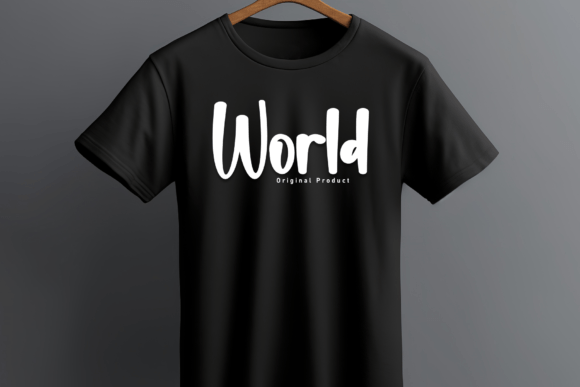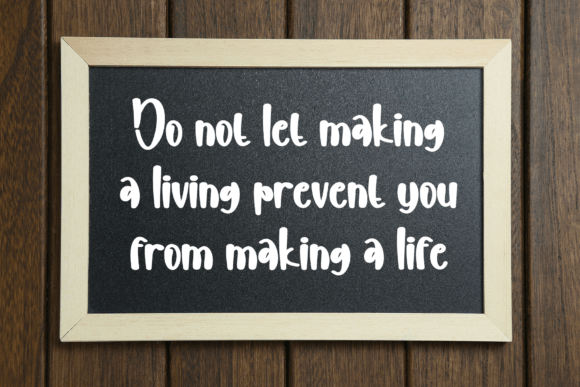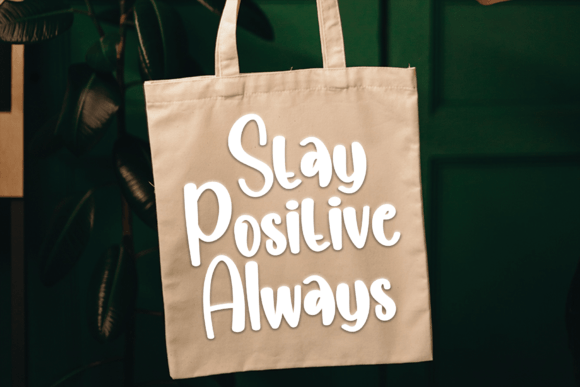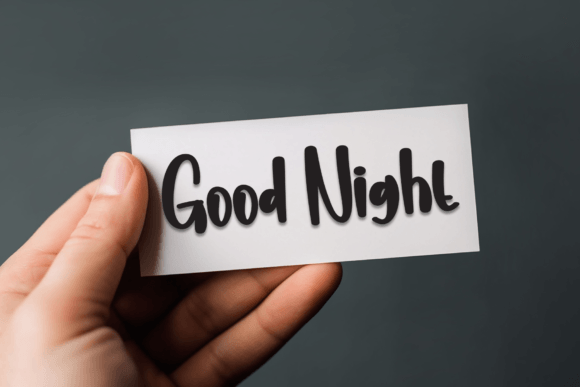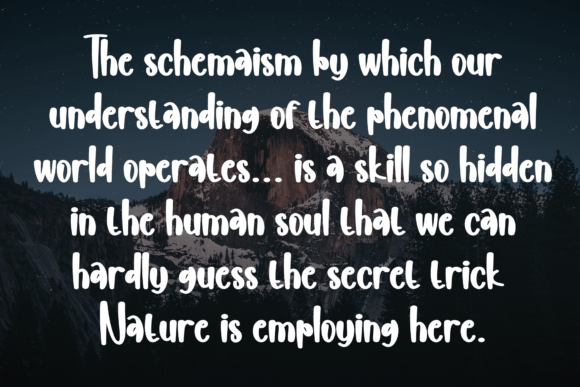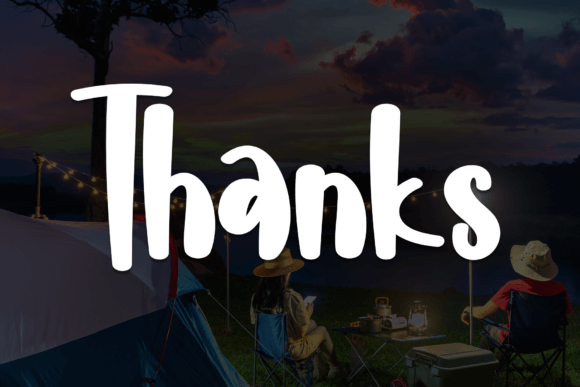
Introduction to Midnight Holiday Font Font
Have you ever found yourself lost in a world of endless design possibilities, only to stumble upon that one perfect element that brings your creative project to life? For designers, it’s a feeling of pure elation – the moment when all the pieces fall into place, and the design begins to shine. And that’s exactly what the Midnight Holiday Font Font does for your next creative project.
With its sweet and friendly handwritten style, this font is an absolute game-changer. Its natural and unique design makes it incredibly versatile, allowing you to unleash your imagination and push the boundaries of your design. Whether you’re working on a high-quality brochure, a website with a transparent background, or a social media campaign, the Midnight Holiday Font Font is the perfect design resource to elevate your work.
Key Features of Midnight Holiday Font Font
- Unique, festive design with a transparent background, perfect for adding a touch of holiday cheer to your creative project.
- High-quality font with a clear, legible design, ideal for use in various creative projects, such as posters, invitations, and social media graphics.
- Unique characteristics: A playful, cursive design with a touch of whimsy, making it perfect for adding a personal touch to your holiday-themed creative project.
Honest Review: Midnight Holiday Font Font
What works well: ✨ The Midnight Holiday Font Font is a beautifully crafted font that exudes a sense of luxury and sophistication. It’s perfect for creating a festive atmosphere, especially during the holiday season. The font is highly versatile and can be used for a variety of design projects, from invitations to advertising materials.
Limitations: ⚠️ While the Midnight Holiday Font Font is a great resource, it’s not without its limitations. The font is only available in a limited number of weights and styles, which may limit its use in certain design projects.
Overall impression: The Midnight Holiday Font Font is a great addition to any designer’s toolkit. Its high-quality design and versatility make it an excellent resource for creative projects. While it has some limitations, it’s a great option for designers who are looking for a free, high-quality font for their next project.
Use the Midnight Holiday Font Font in conjunction with other design elements to create a high-quality and visually appealing design. Experiment with different font sizes, colors, and alignments to achieve the desired effect. For a creative project, use the font in a way that complements the overall design aesthetic.
The Midnight Holiday Font Font is ideal for use in design projects that require a modern and festive feel. It’s perfect for creating invitations, social media graphics, and other design elements for holidays and special events.